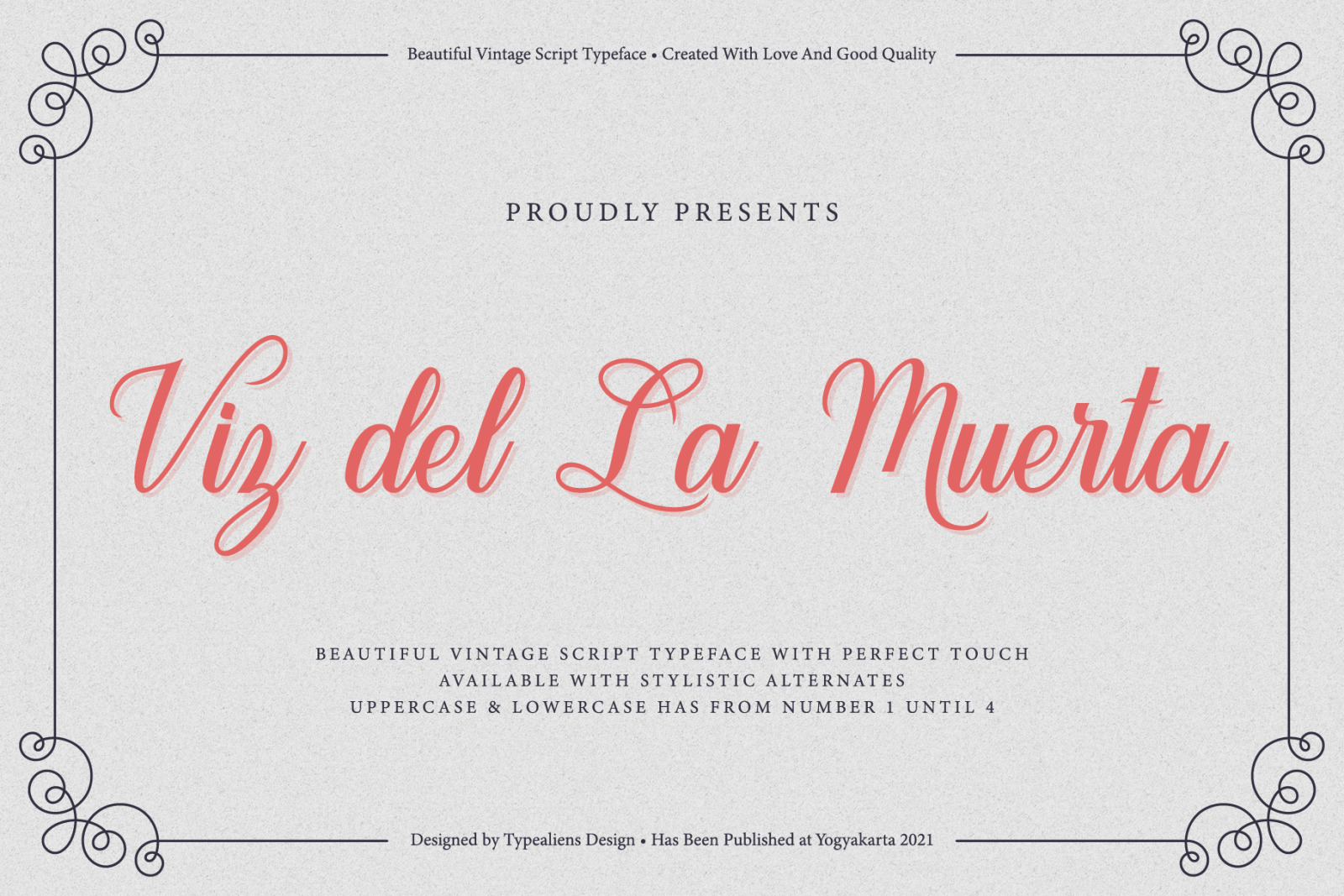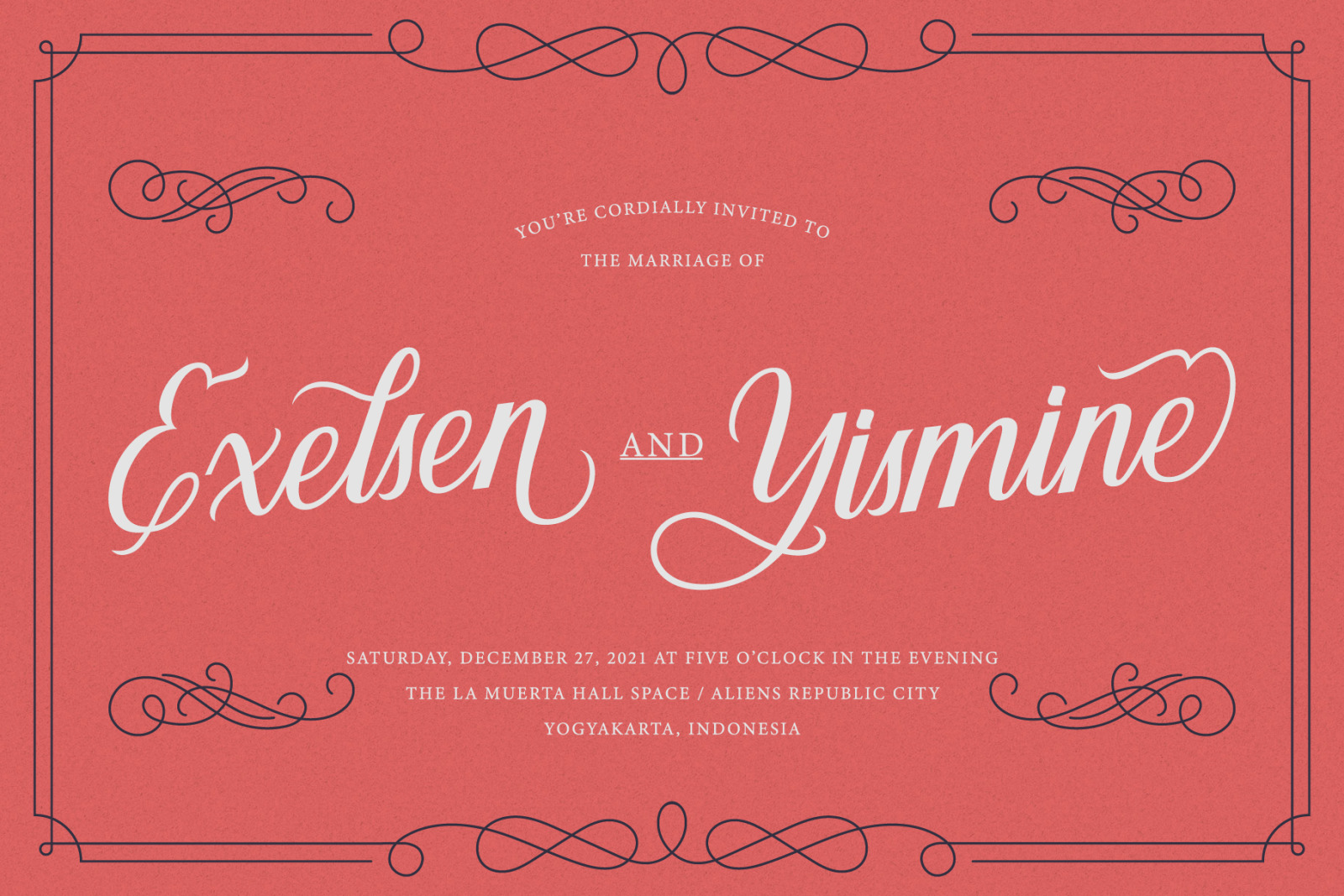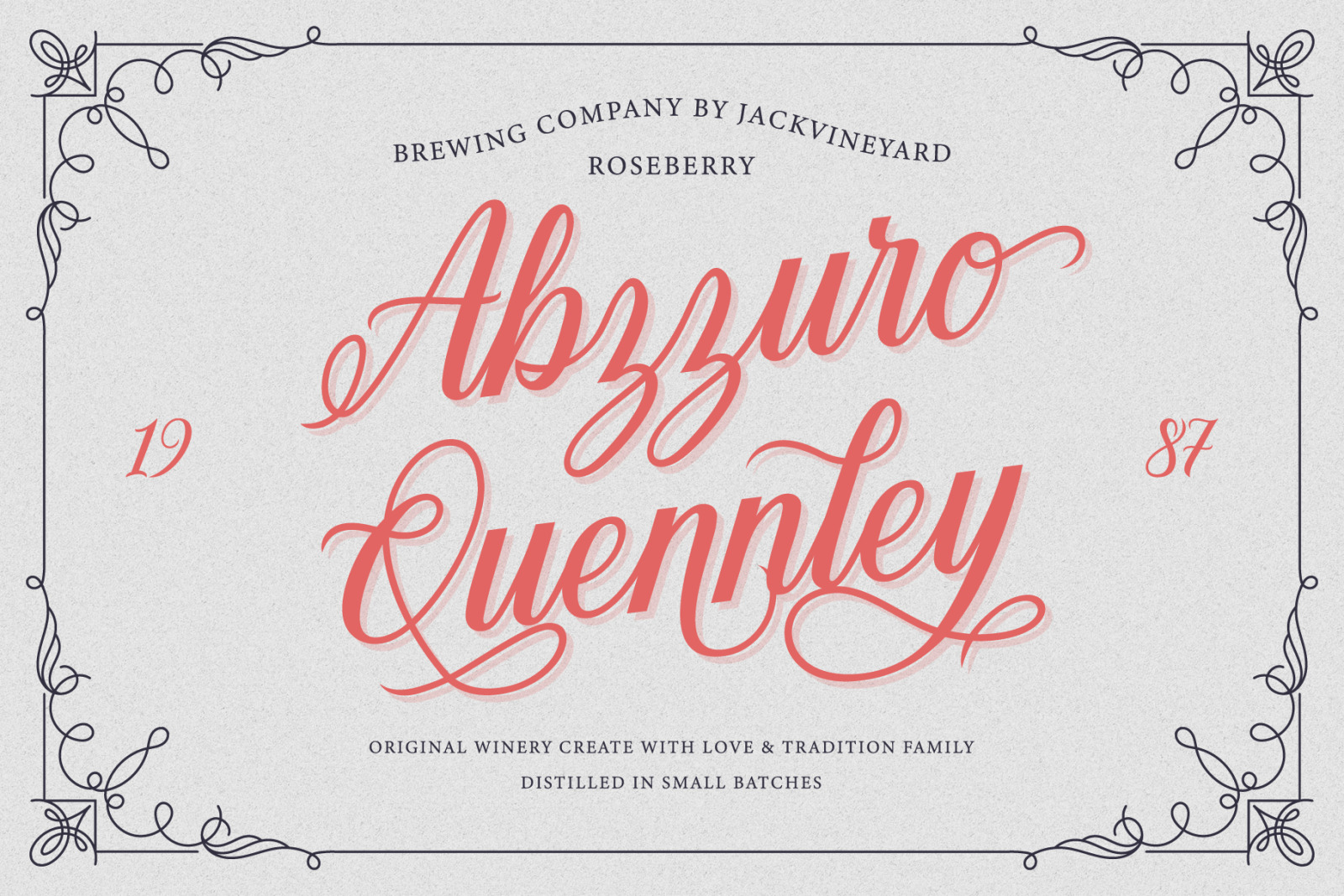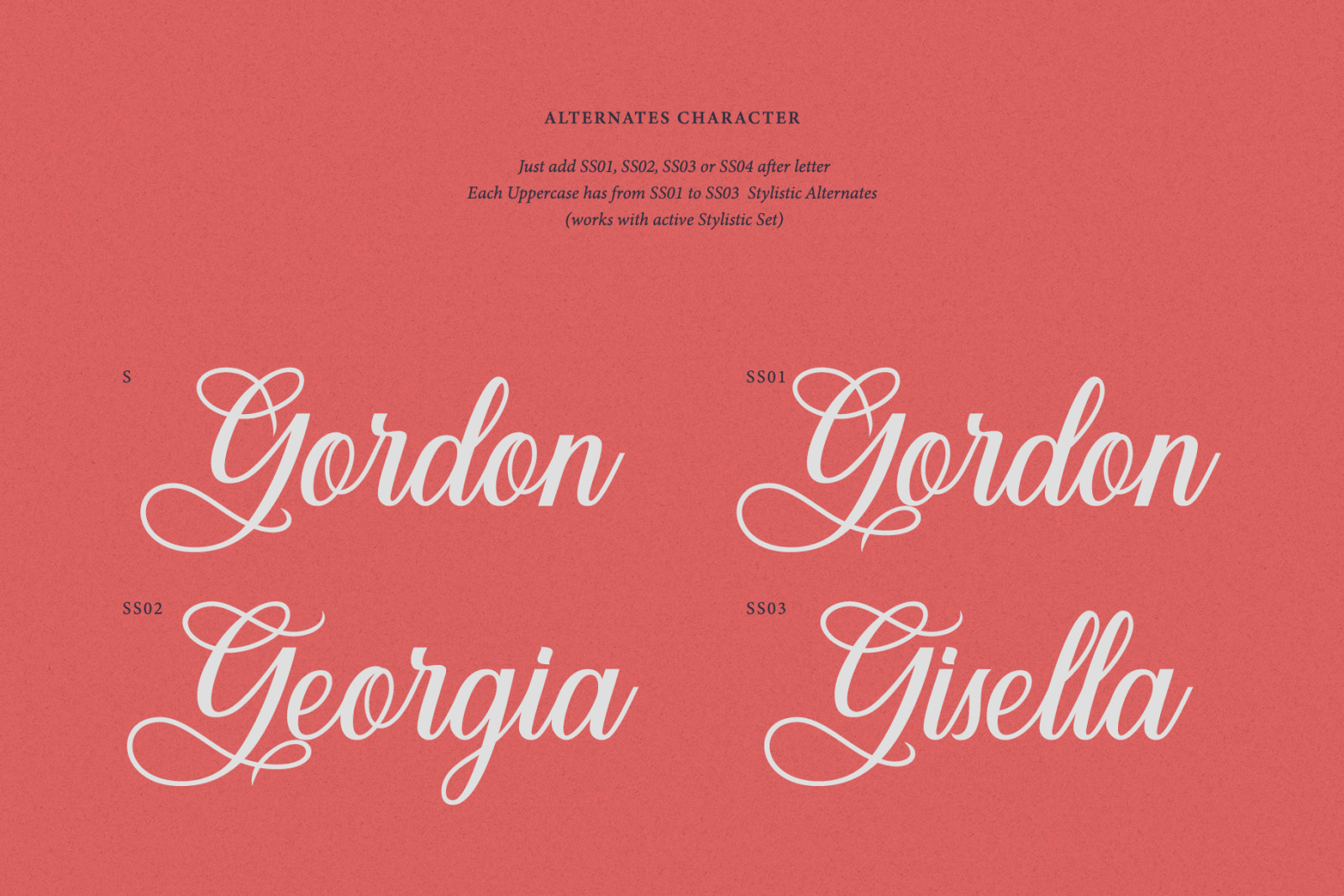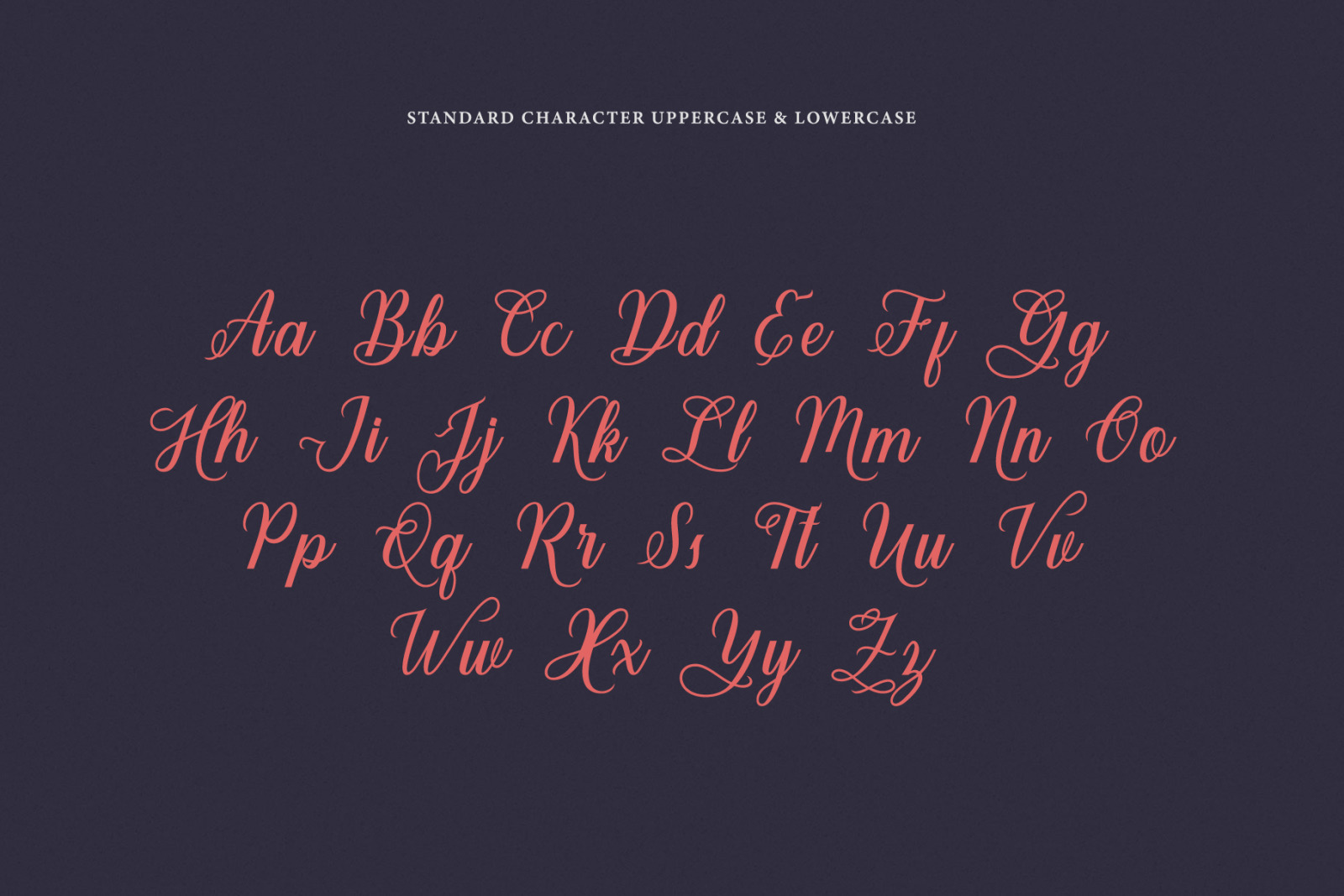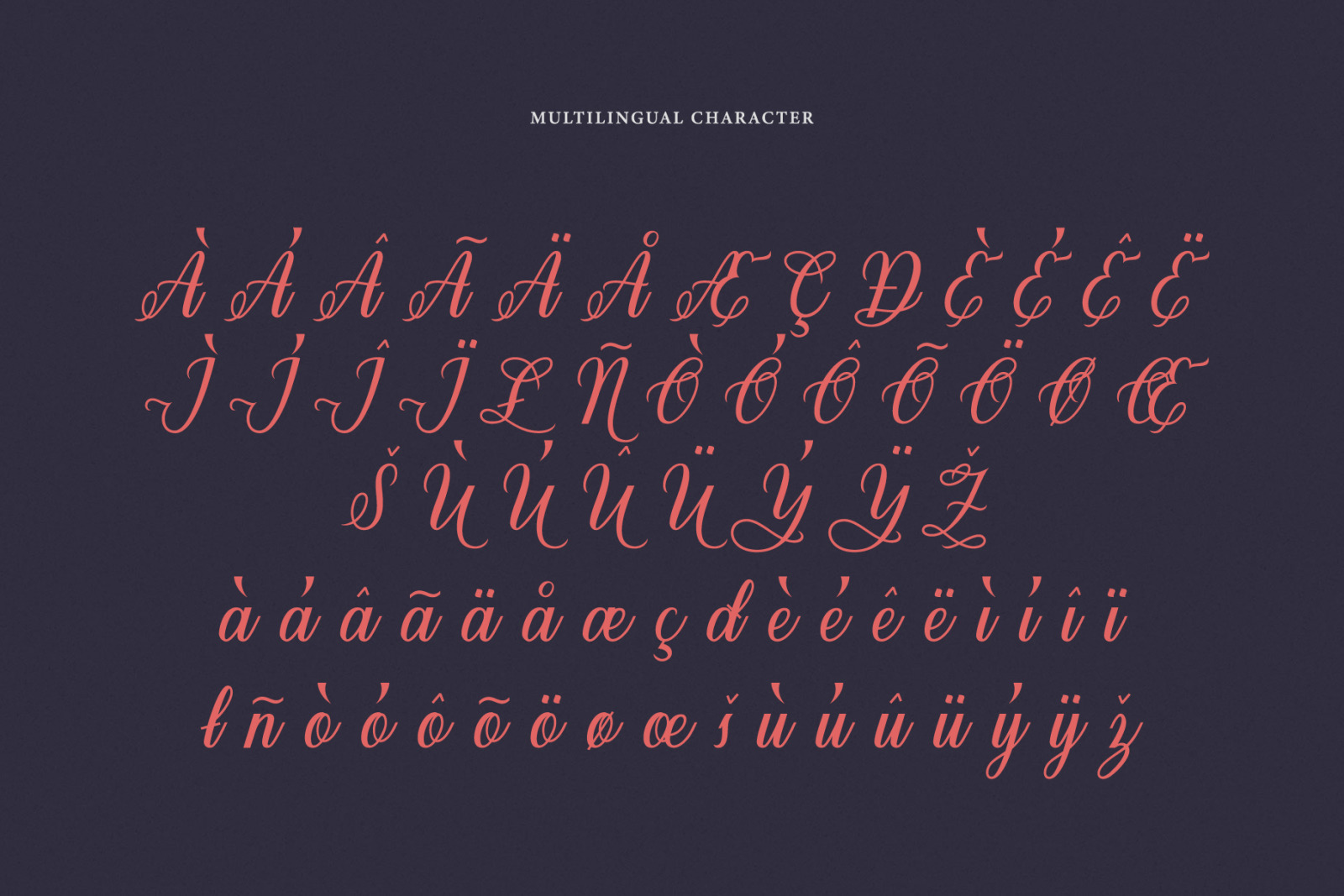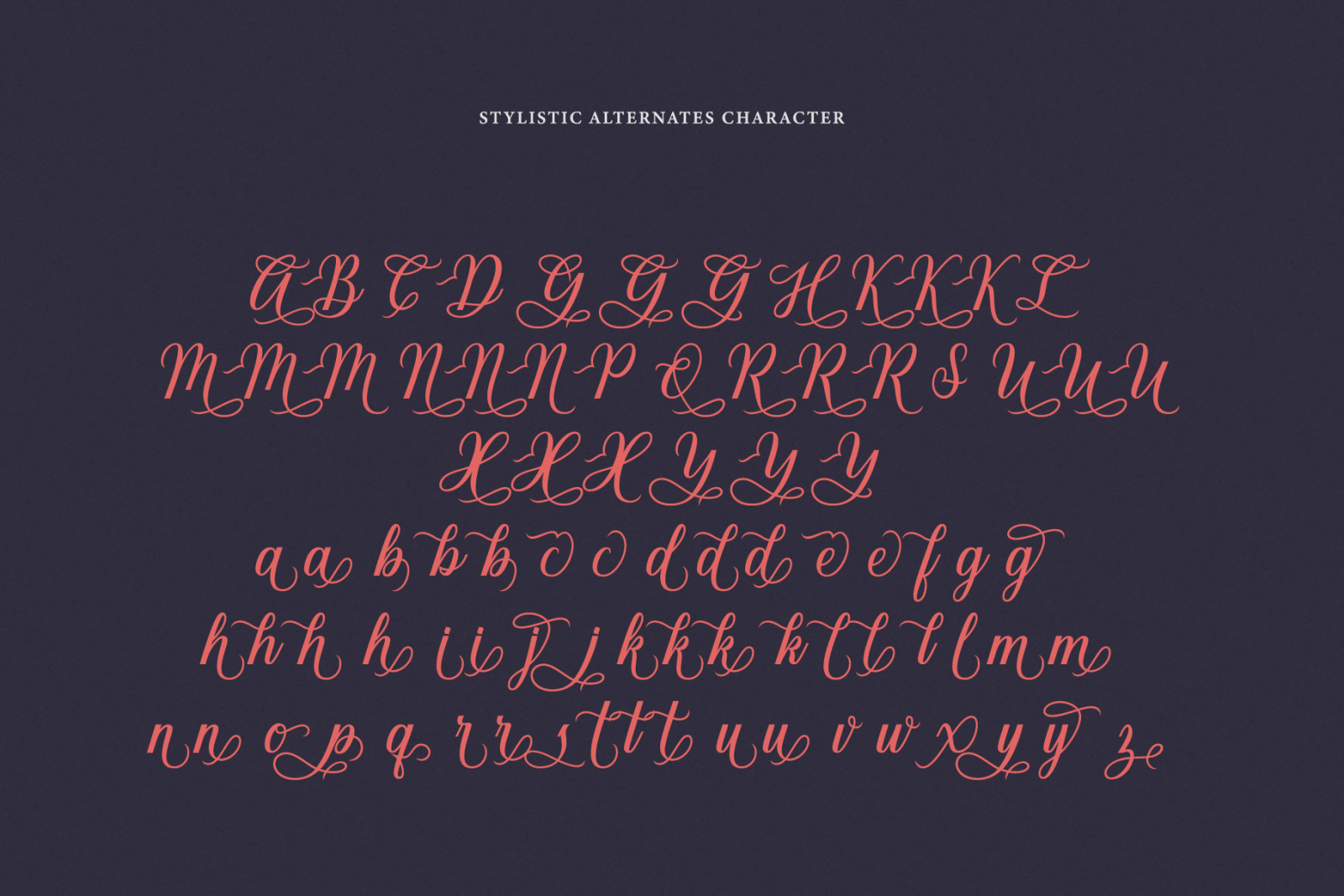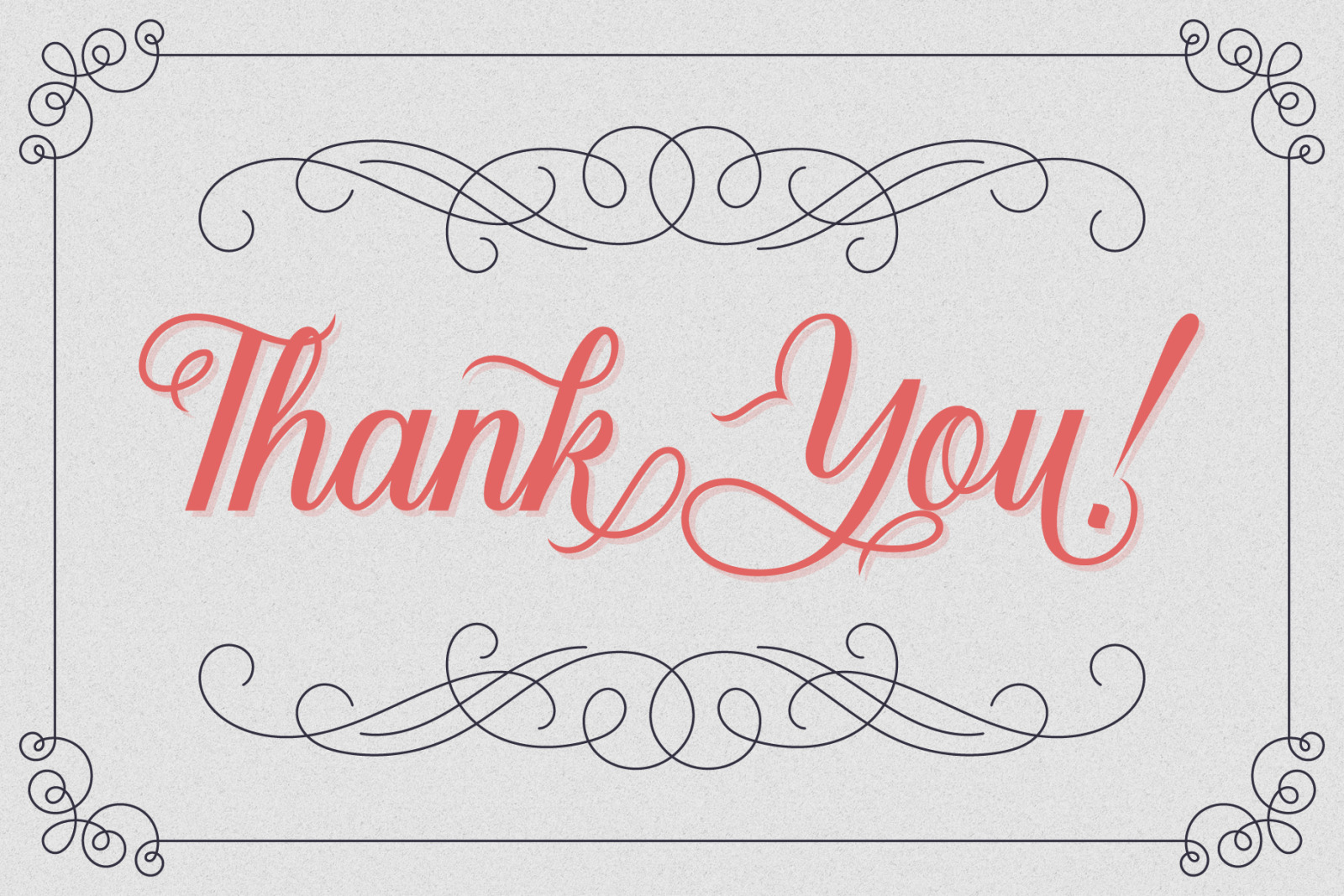
Viz del La Muerta Font
VIZ DEL LA MUERTA is an old style script font with a bit of a feminine touch. This font, which is inspired by the basic form of copperplate letters, is very beautiful.
Of course, this type of lettering will be very interesting and suitable for wedding invitation designs as a font for the bride's name, creating a beautiful and elegant logo.